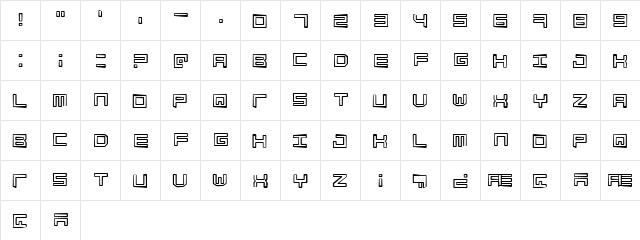
Simply Mono Dirty Regular
| Foundry | La Tipomatika |
| Designer | La Tipomatika |
Design Context for Simply Mono Dirty Typeface
Simply Mono Dirty uses fixed-width spacing throughout, giving it the structured, systematic character associated with coding environments and technical documentation.
Pro Tip: Use Simply Mono Dirty with slightly increased line-height for extended reading — fixed-width spacing can feel dense in longer passages without extra breathing room.